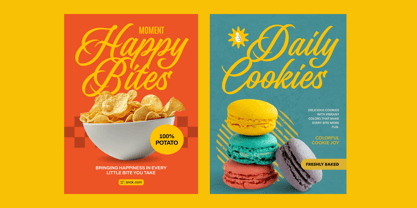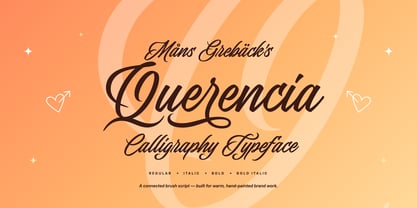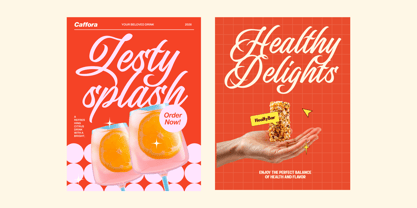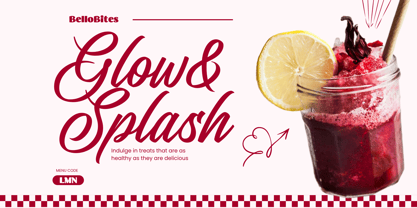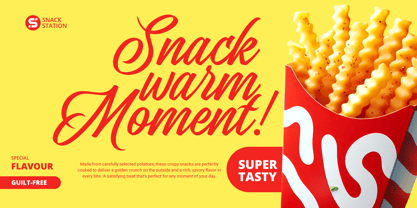
Querencia
The Querencia Font Family was designed by Måns Grebäck and published by Mans Greback. Querencia contains 4 styles and family package options. More about this family
Querencia is a connected brush script with long swashes and weighted downstrokes.
The letters lean at a steady italic angle and connect through generous entry and exit strokes, so a word is read more as a single gesture than as a row of separate forms. The lowercase sits low and even; the uppercase opens up with wider loops where the hand had room to move. It reads as something painted rather than drawn, closer to a sign painter's brush than to a calligrapher's nib.
It is the kind of lettering you can picture on a hand-painted awning early on a Saturday, or scrawled on the side of a paper bag by someone who has been writing this same word for years.
The font is built with advanced functionality and guaranteed top-notch quality, containing stylistic and contextual alternates, ligatures and more automatic and manual features; all to give you full control and customizability.
It has extensive lingual support, covering all Latin-based languages, from North Europa to South Africa, from America to South-East Asia. It contains all characters and symbols you'll ever need, including all punctuation and numbers.